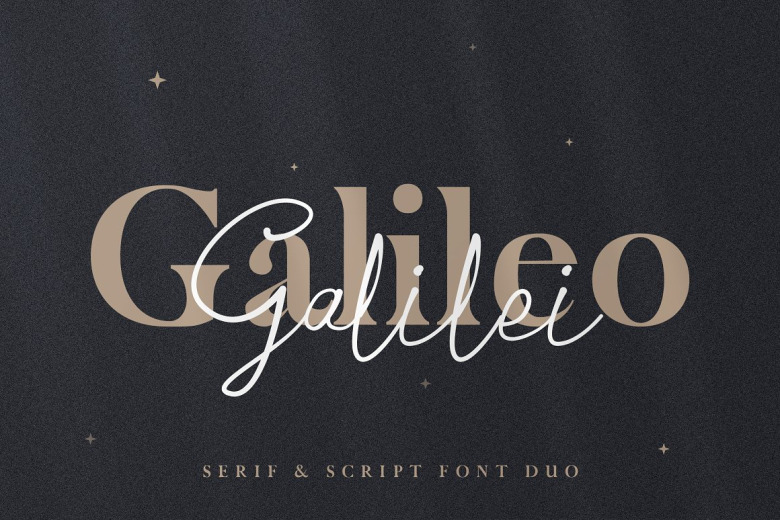
Galileo Galilei Font Duo
Galileo Galilei Font
Say hi to Galilei – modern pair of classic serif and handwritten script fonts duo. The font duo work perfectly that will make it easier to create modern logo, poster, invitation, package design and and much more.
The serif work perfectly for all kind of headline and text copy, the script give it a little accent to your design/composition. Both font include all English characters a-z, special characters, and basic multilingual glyphs.